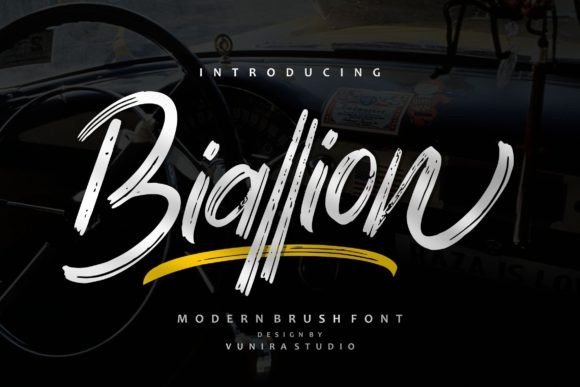
The Perfect Brushstroke: Unlocking the Power of Biallion Font
There’s something magical about bringing a design concept to life, isn’t there? The moment when all the elements fall into place, and your vision takes shape – it’s a feeling like no other. For designers, this moment is what drives us to create, to innovate, and to push the boundaries of what’s possible. And that’s where Biallion Font comes in – a fresh and modern handwritten brush font that’s designed to elevate your designs to new heights.
Biallion Font is more than just a typeface; it’s a tool that can breathe life into even the most mundane designs. With its incredible versatility and PUA encoded features, this font allows you to access a wide range of glyphs and ligatures with ease. Whether you’re working on a branding project, a website, or a social media campaign, Biallion Font is the perfect companion to help you achieve your creative vision.
Biallion Font Key Features
- Unique Characteristics: Biallion Font features a unique blend of modern and vintage elements, making it suitable for a wide range of design applications
Biallion Font Review
I recently had the chance to work with the Biallion Font, and I must say it’s a unique and intriguing choice. ✨ One of the things that stands out about this font is its versatility – it works well for both digital and print media, and its sleek design makes it perfect for modern branding and web design.
Some of the key features that I appreciate about the Biallion Font include:
- High-quality vector graphics, making it perfect for scaling up or down
- A wide range of language support, making it suitable for global audiences
- A modern and sleek aesthetic that’s perfect for trendy brands and websites
However, there are some limitations to the Biallion Font that I want to note. ⚠️ While it’s generally easy to read, the font can become a bit too ornate at larger sizes, which can make it difficult to decipher for some users. Additionally, the font’s complexity can make it challenging to pair with other fonts, which can limit its versatility.
Overall, I think the Biallion Font is a solid choice for designers who want a modern and sleek font that can stand out in a crowd. While it has some limitations, its unique design and versatility make it a worthwhile investment for any design project.
Getting the Most Out of Biallion Font
To get the most out of Biallion Font, experiment with different font sizes, colors, and styles to create a unique look. Use the font in combination with other design elements, such as images and shapes, to create a visually appealing design.
Biallion Font is commonly used in designs that require a bold, modern look, such as logos, business cards, and social media graphics. It is also used in designs that require a touch of sophistication, such as wedding invitations and luxury product packaging.